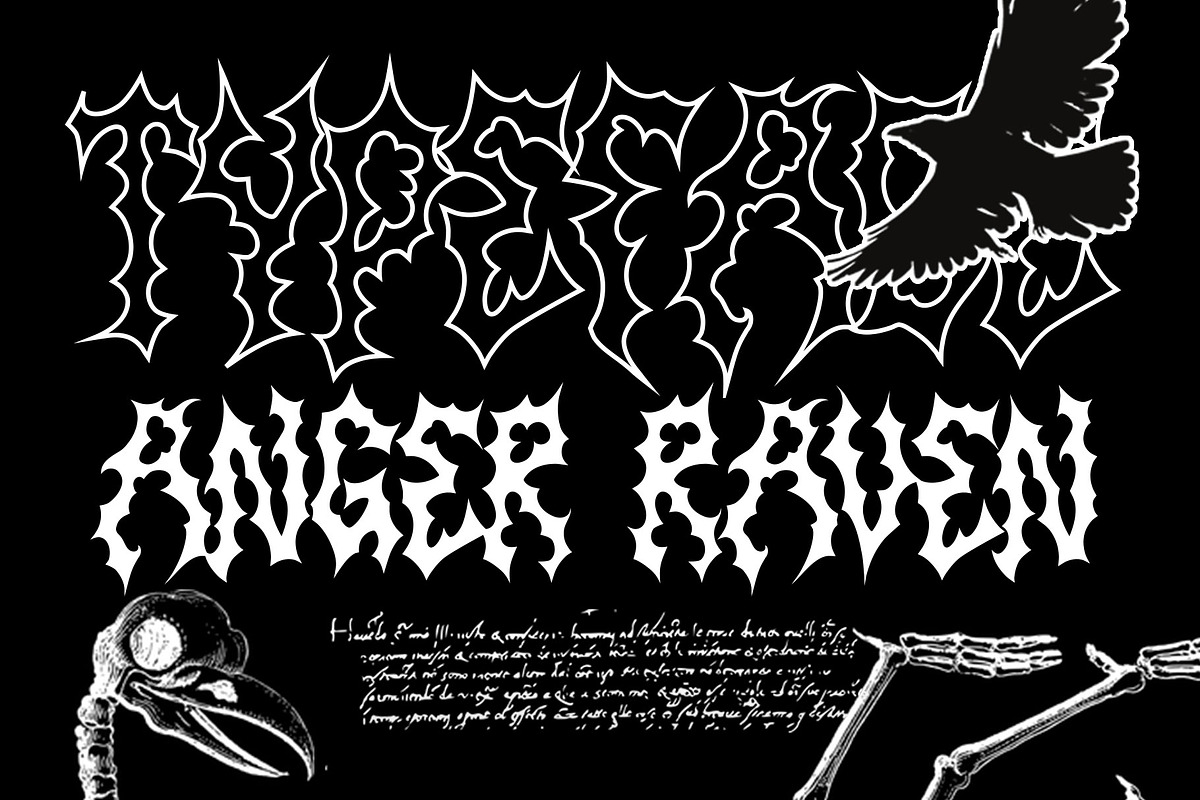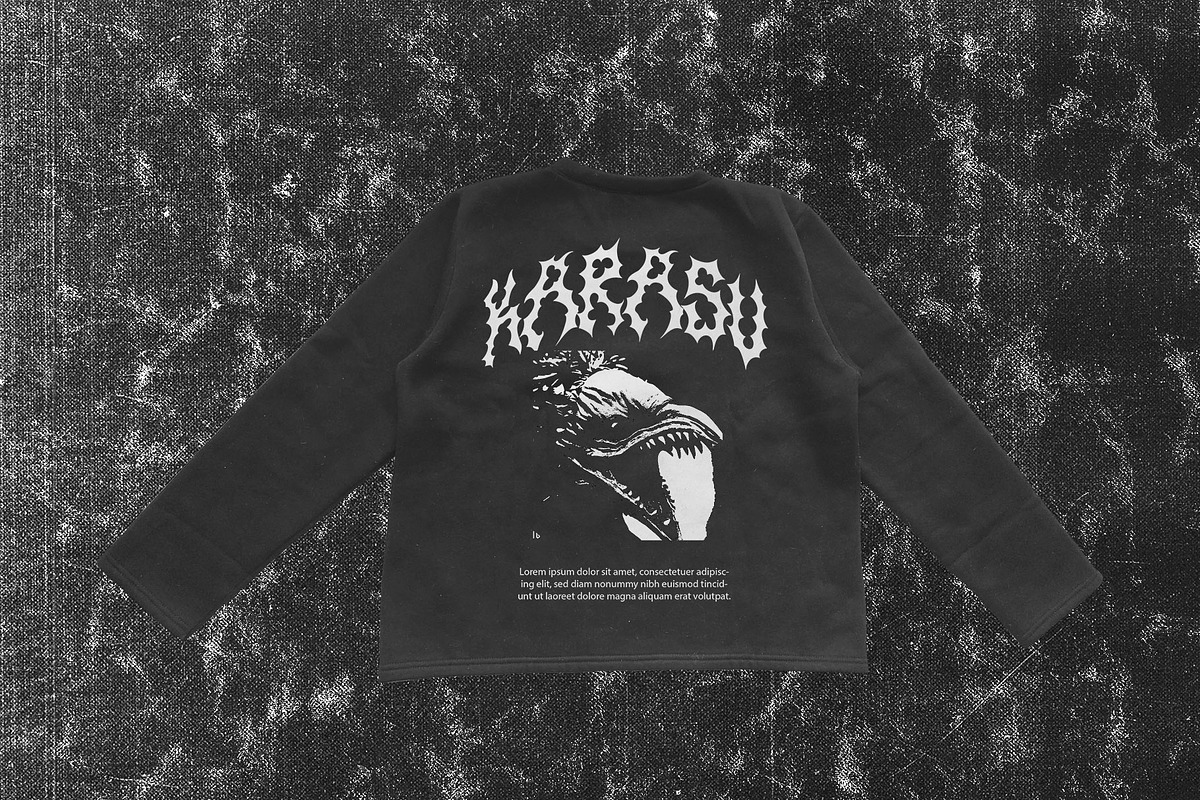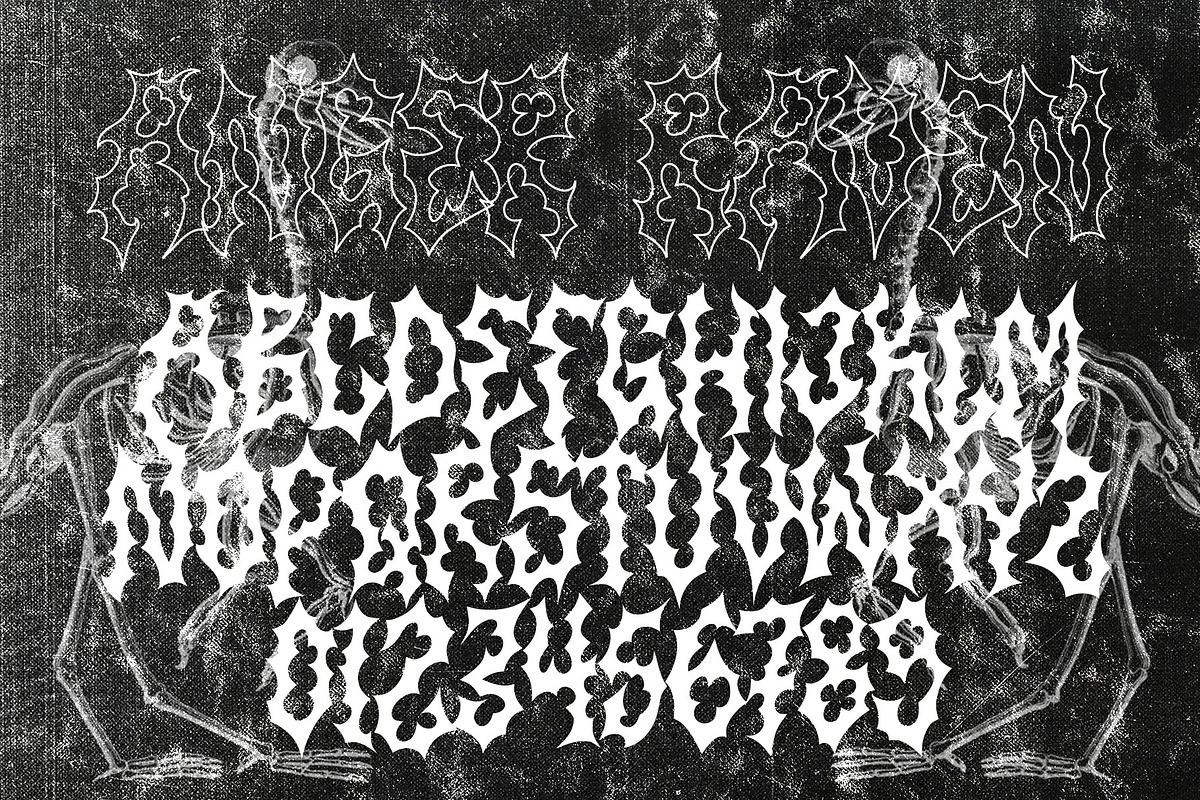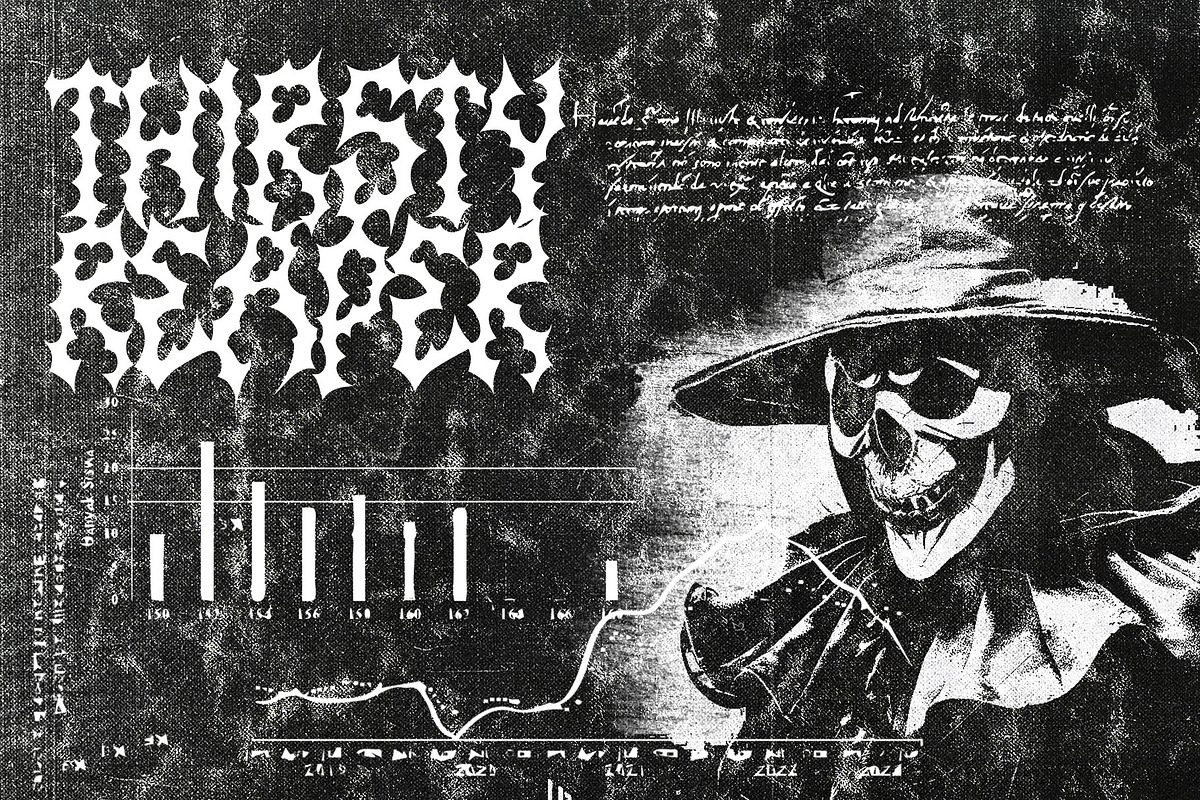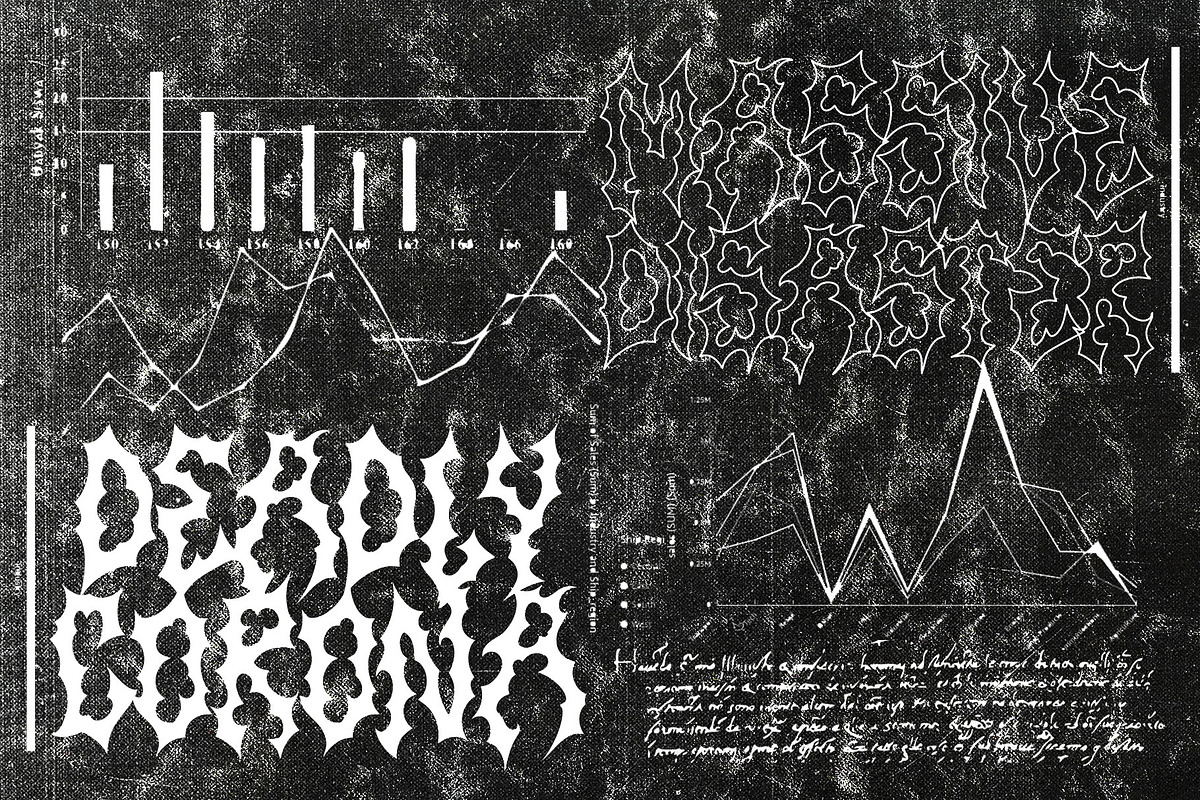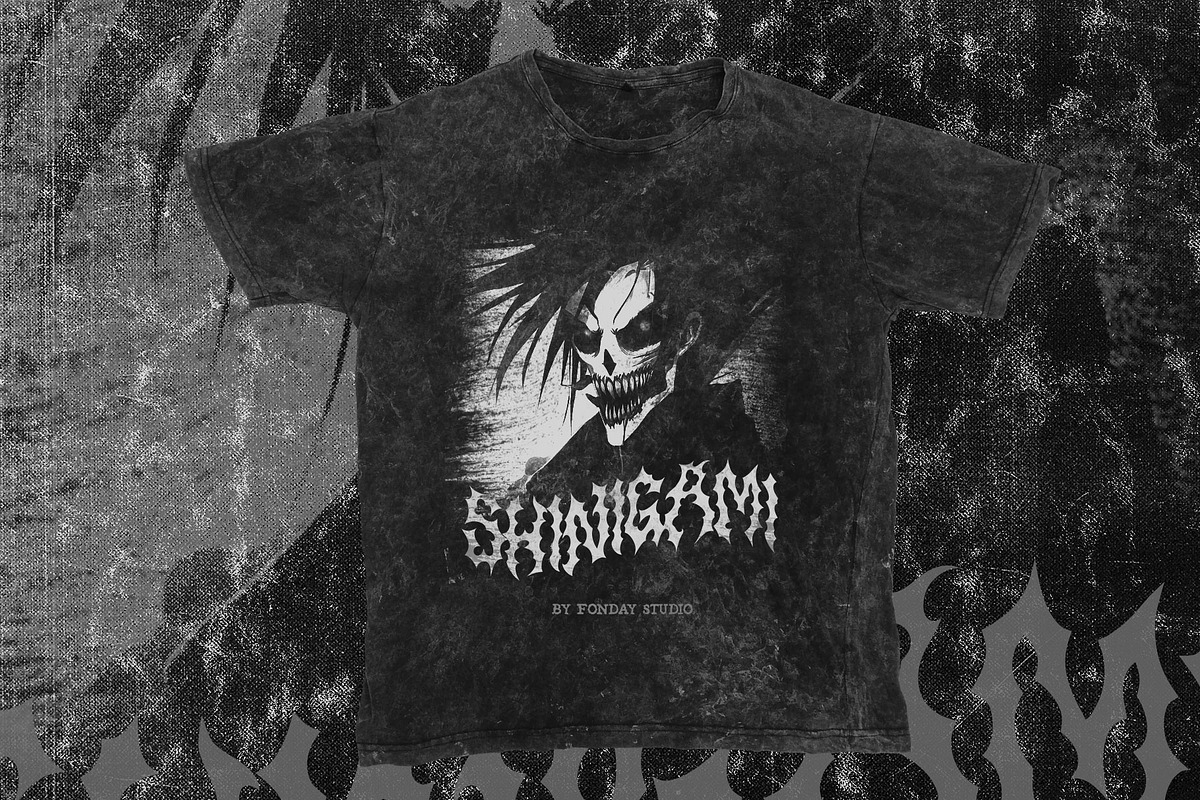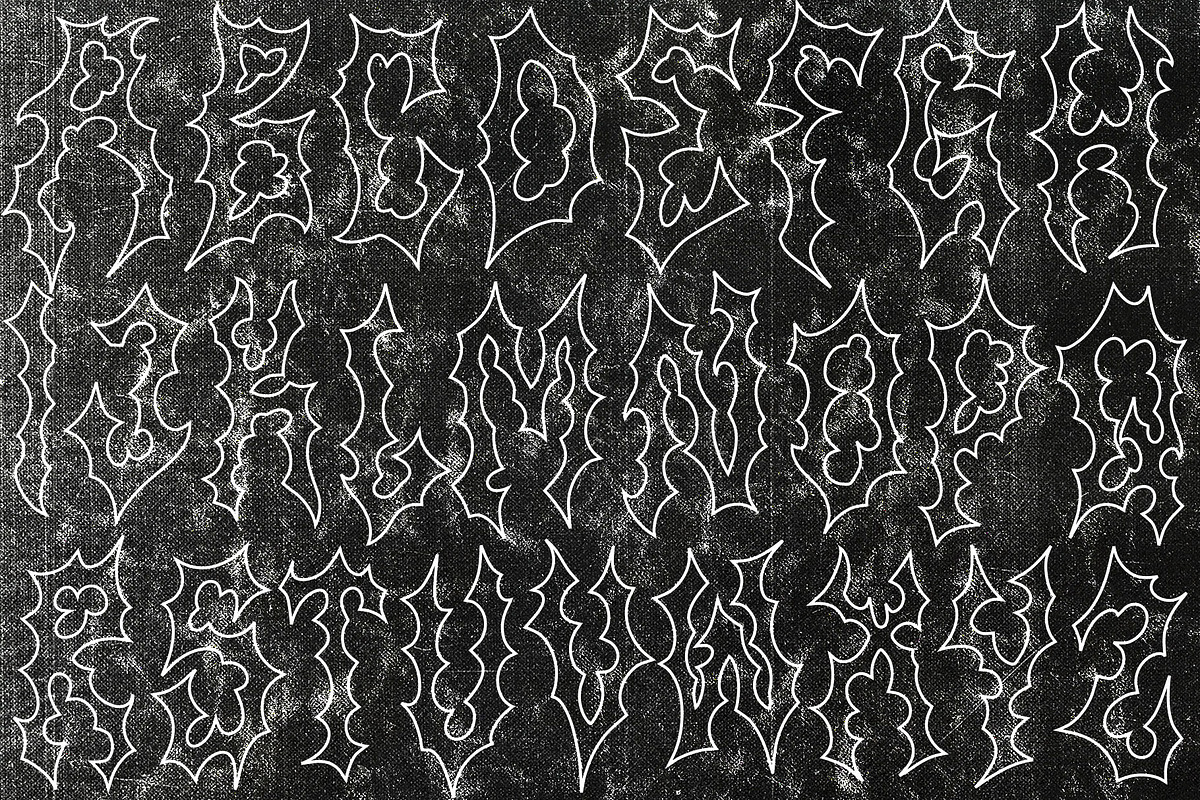
ANGER RAVEN – Death Metal Fon
Introducing Anger Raven Death Metal Font, our bold and aggressive font that’s perfect for capturing the raw energy of metal music. With its sharp and edgy design, Anger Raven is ideal for creating designs that reflect the intensity and power of metal bands. So if you’re ready to add a touch of darkness and aggression to your designs, download Anger Raven today and unleash the power and energy of metal music in your designs. Get ready to rock with Anger Raven Death Metal Font!